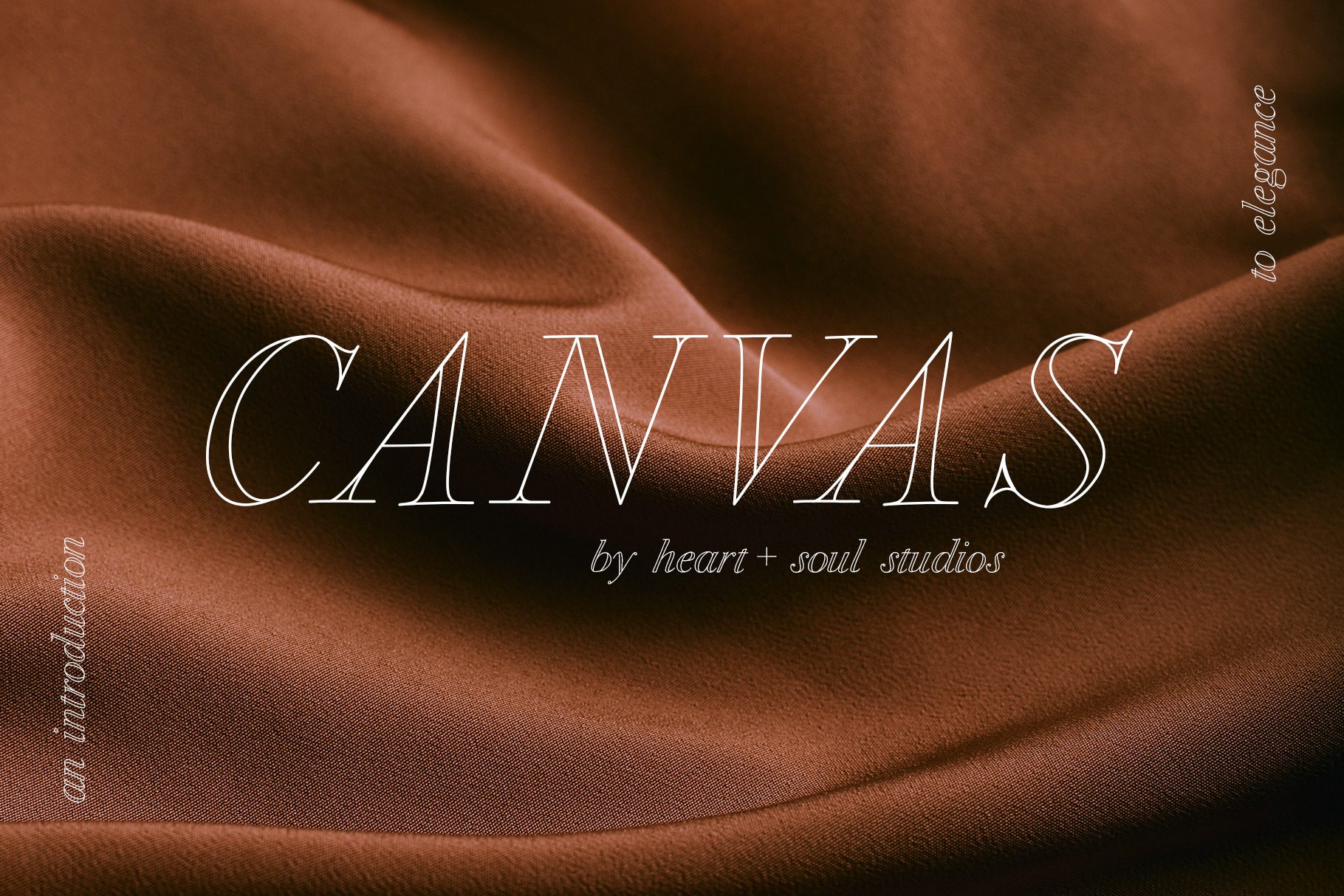
CANVAS | Elegant Serif Font
Inspired by the possibility and wonder of a new beginning and the grace to start again, CANVAS is an elegant serif font, that refuses to 'fill in the blanks', but rather creates and leaves space to be a statement in and of itself.
Gentle. Strong. Feminine. Bold. Welcome, CANVAS.
For those who have thought a new beginning too late or themselves unworthy of such grace. May you come to know that the promise of 'mercies new every morning' is for you.